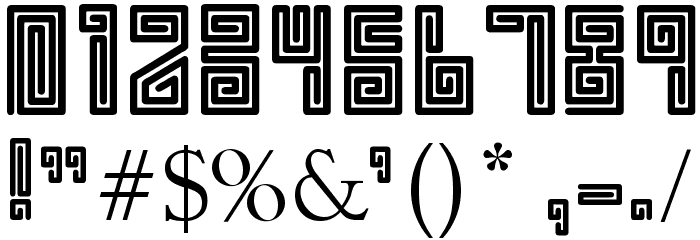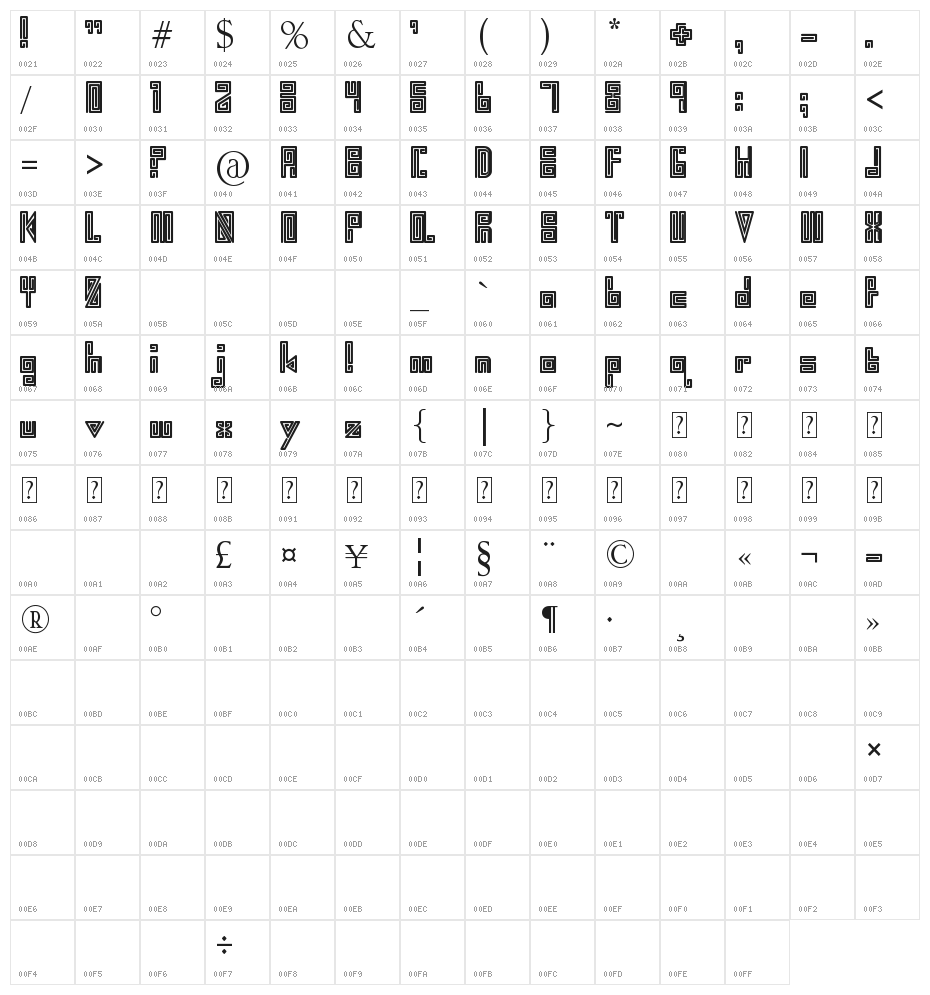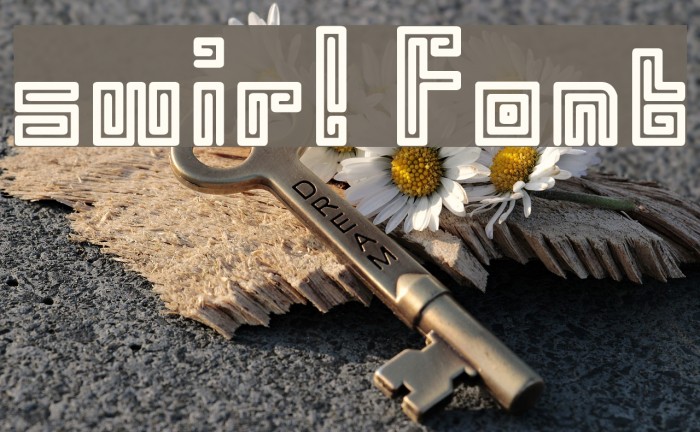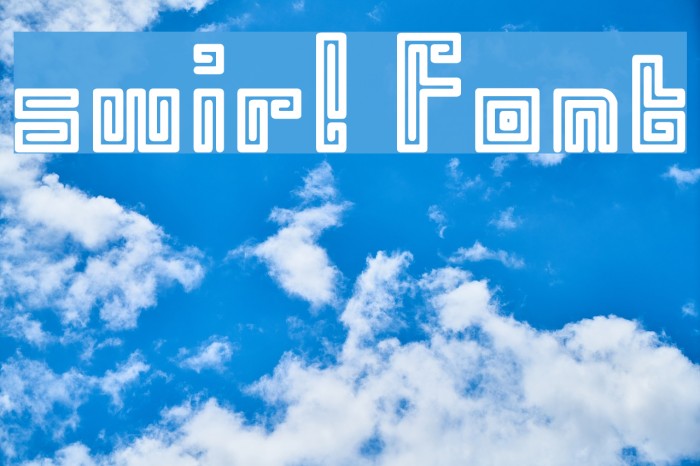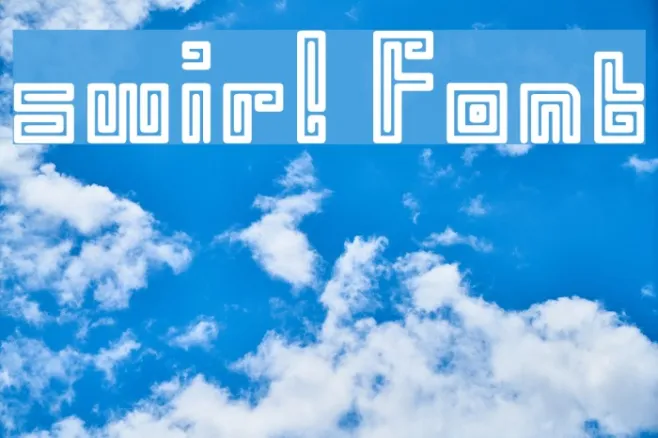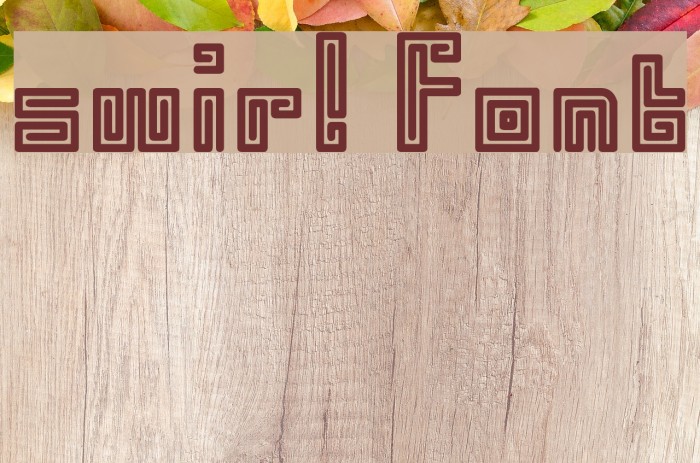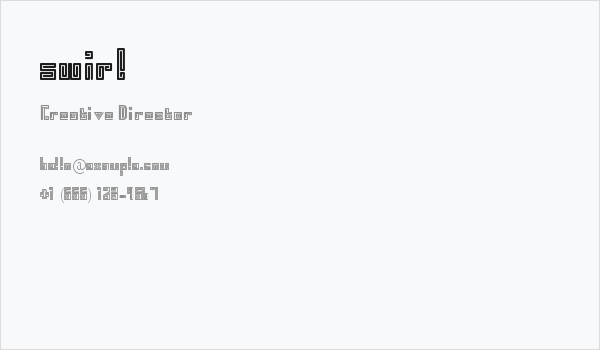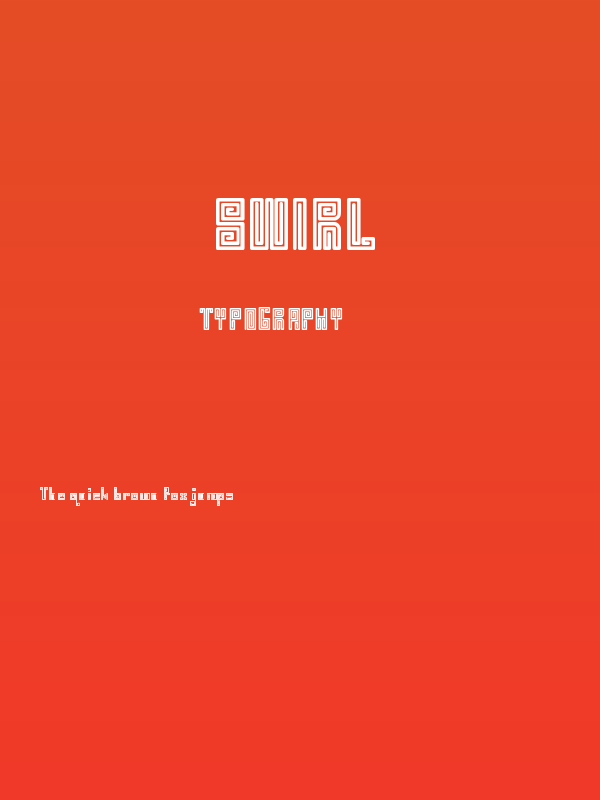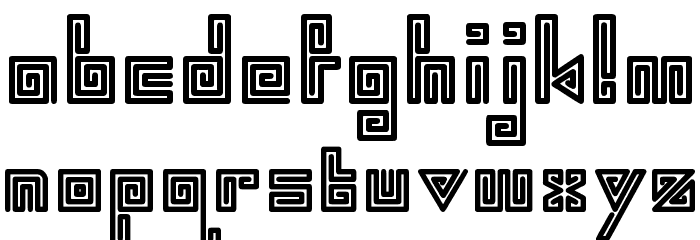
swirl Font
swirl Description
This font features a bold, geometric design with intricate, maze-like patterns within each character. The uppercase letters are particularly striking, with sharp angles and a strong presence. The lowercase letters maintain the same geometric style, offering a cohesive look across the alphabet. Numbers and special characters follow suit, ensuring consistency throughout. The font's unique style makes it ideal for eye-catching designs, where a bold statement is necessary. Its complex patterns suggest a modern, artistic flair, suitable for projects that require a distinctive and memorable typeface.
| Proposed Projects | Ideal for posters, logos, album covers, and branding materials that require a bold, artistic touch. |